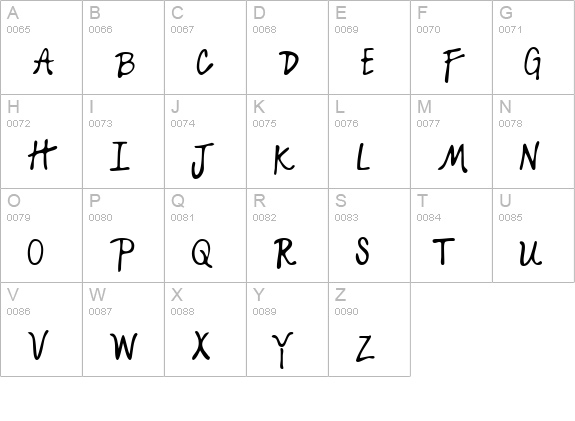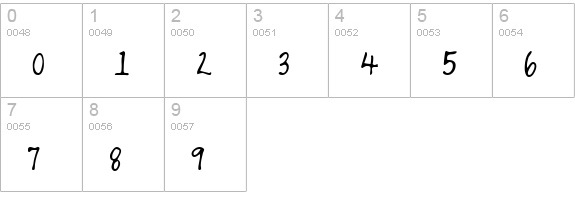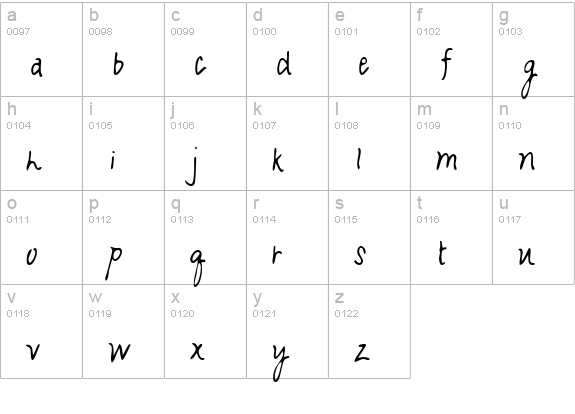
KanesHand Regular Font Details
KanesHand Regular is the standard, neutral variant in the KanesHand typeface family \xE2\x80\x94 well suited to general body text, paragraphs, and standard typographic work.
KanesHand Regular is a captivating and versatile font that effortlessly blends elegance with a touch of whimsy. Its unique hand-drawn style adds a personal and organic feel to any design project, making it perfect for a wide range of creative endeavors. With its delicate and flowing lines, KanesHand Regular exudes a sense of effortless grace and charm. Whether used for logos, branding, invitations, or any other design element, this font has the ability to instantly elevate the visual appeal of any project. What makes KanesHand Regular even more appealing is that it is freely available to download at FontsMarket.com. This means that designers and creatives alike can enjoy the beauty and versatility of this font without any cost. It's an incredible opportunity to have such a high-quality font at your fingertips, ready to enhance your designs and captivate your audience. The attention to detail in KanesHand Regular is truly remarkable. Each letter has been meticulously crafted to ensure a seamless flow and a harmonious balance between elegance and playfulness. The result is a font that stands out from the crowd, leaving a lasting impression on anyone who encounters it. Whether you're designing a wedding invitation, creating a stunning logo, or simply looking to add a touch of personality to your next project, KanesHand Regular is the perfect choice. It effortlessly combines sophistication and creativity, bringing a sense of warmth and authenticity to your designs. With its wide range of glyphs and extensive language support, KanesHand Regular is suitable for use in various projects across different industries. Its versatility knows no bounds, making it a go-to font for both professional designers and amateurs alike. In conclusion, KanesHand Regular is a must-have font for anyone looking to add a touch of elegance and charm to their designs. And with the added bonus of being freely available to download at FontsMarket.com, there's no reason not to explore the endless creative possibilities that this font has to offer. So go ahead, unleash your creativity and let KanesHand Regular take your designs to new heights.